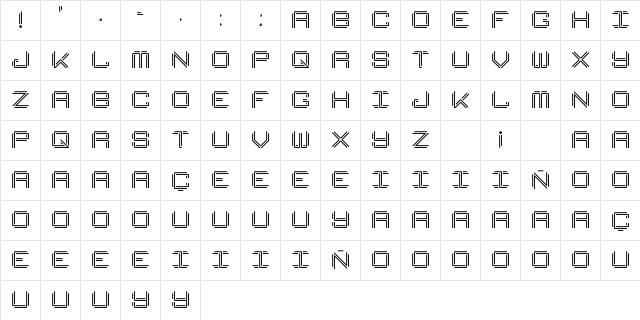
Bend Regular Font Preview
Bend Regular
Bend Regular Font Details
| Foundry | Don Marciano |
| Designer | Juan Miguel Castillo |
Design Context for Bend Typeface
Bend is a composed and adaptable typeface that performs quietly and consistently across a wide range of design contexts.